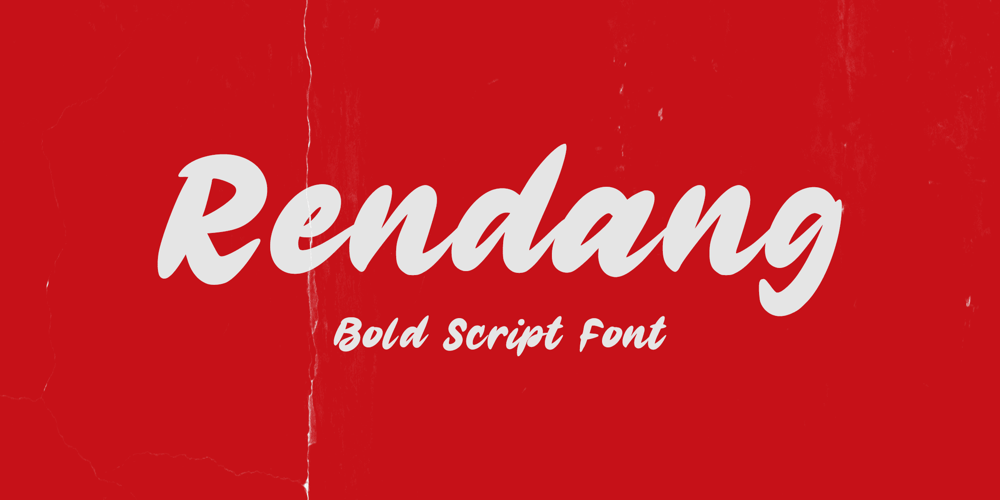
Rendang Font Family was designed by Winarno, Eko Kurniawan and published by Enbe Studio. Rendang contains 1 styles and family package options. Rendang is indeed a striking font that captures the essence of boldness and confidence with its all-caps and handcrafted quick stroke style. It’s designed to make a statement and is perfect for branding, headlines, and any project that requires a touch of strength and assertiveness. With its roots in traditional hand-lettering techniques, Rendang brings a unique blend of modernity and timelessness to the table, making it a versatile choice for various design needs. Whether for personal projects or commercial endeavors, this font stands out with its distinctive character and robust presence.